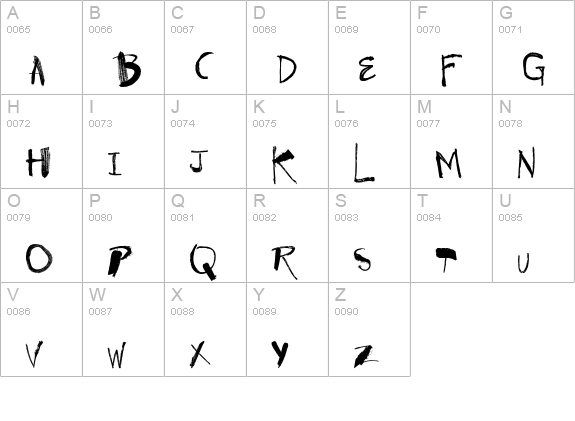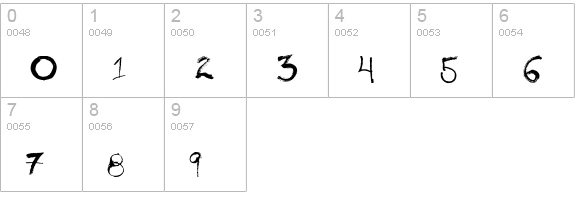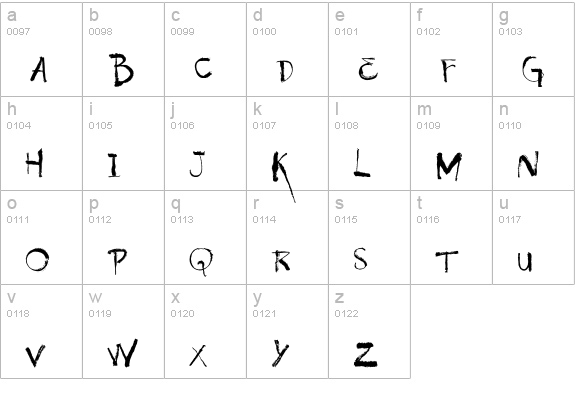
Vtks Propolis Font Details
Vtks Propolis is a stunning display font that exudes elegance and charm. With its intricate details and unique design, this font is sure to make any project stand out. Whether you're creating invitations, posters, or branding materials, Vtks Propolis will add a touch of sophistication to your work. What makes Vtks Propolis even more appealing is that it is completely free to download. Yes, you read that right! This beautiful font is freely available at FontsMarket.com, allowing you to elevate your designs without breaking the bank. Don't miss out on the opportunity to add Vtks Propolis to your font collection and take your projects to the next level.